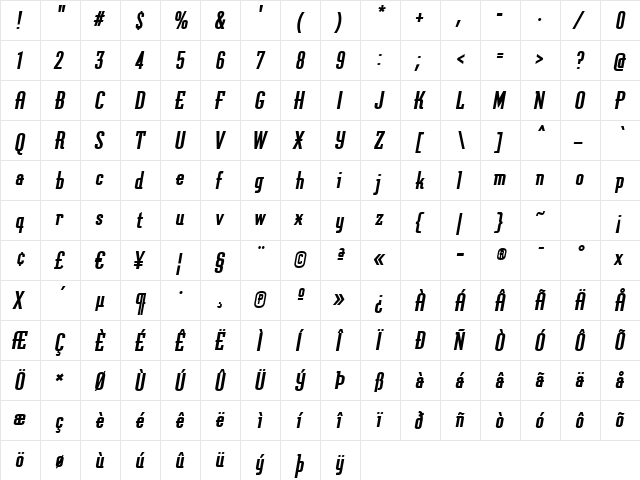
Graficz BoldItalic
Design Context for Graficz Typeface
Graficz is a composed and adaptable typeface that performs quietly and consistently across a wide range of design contexts. The slanted form adds forward momentum and visual energy. Its bold stroke weight gives it real presence on the page.